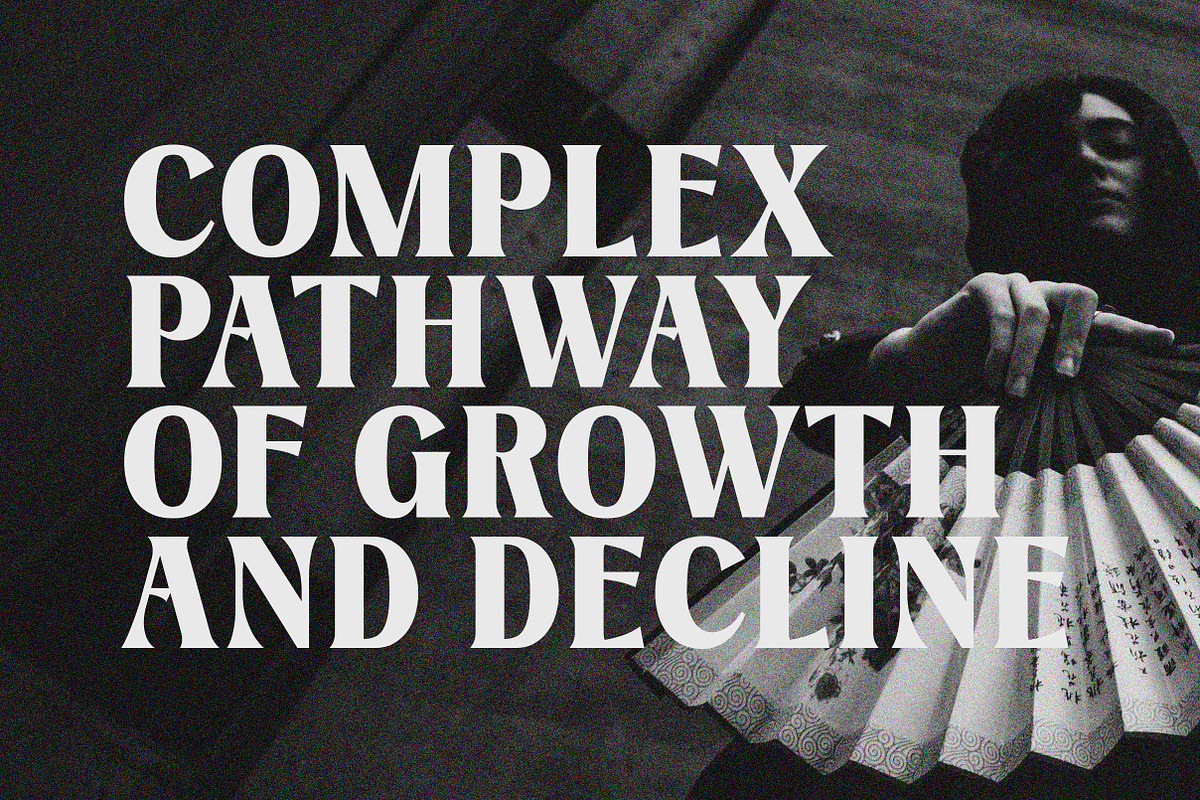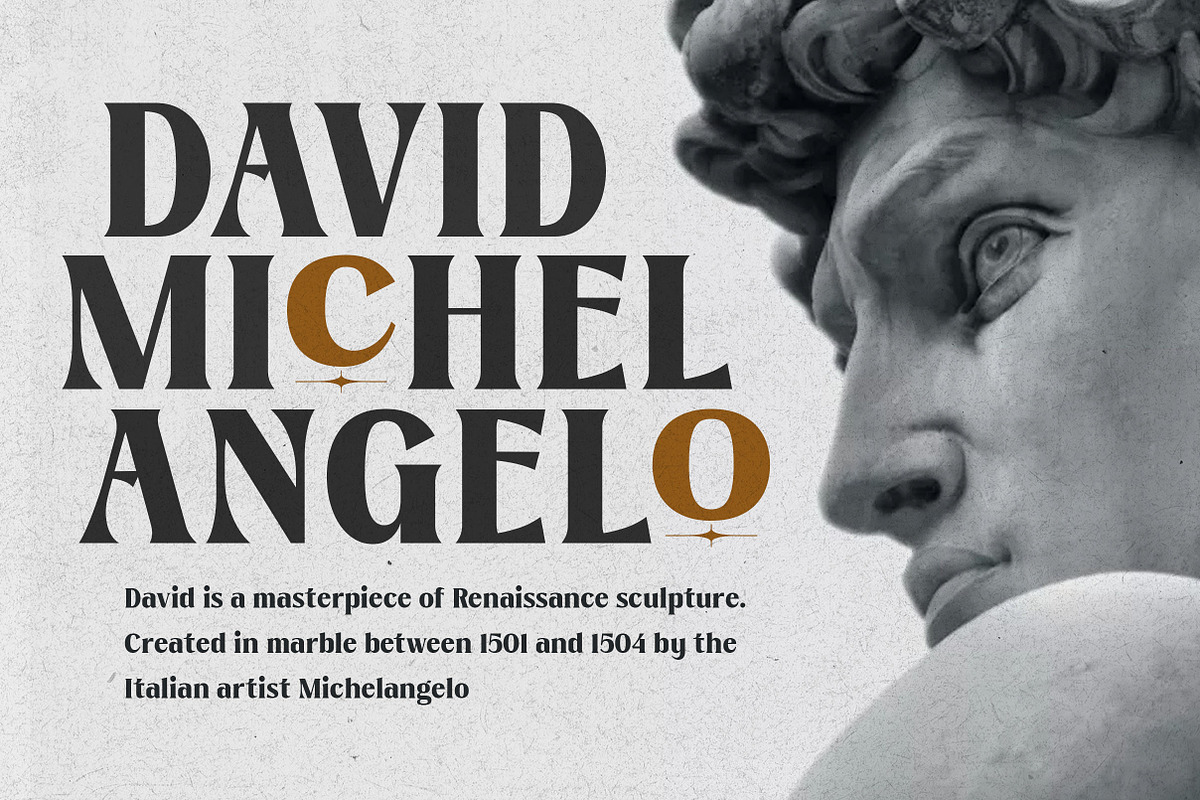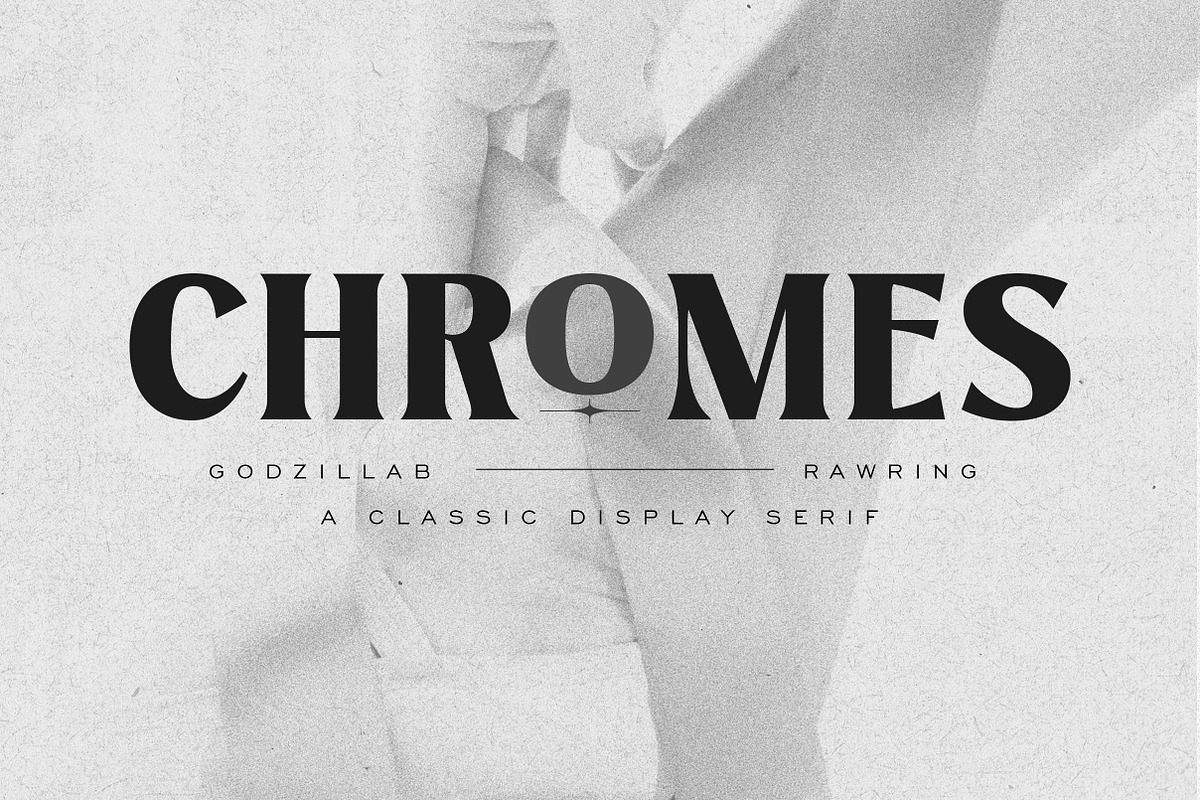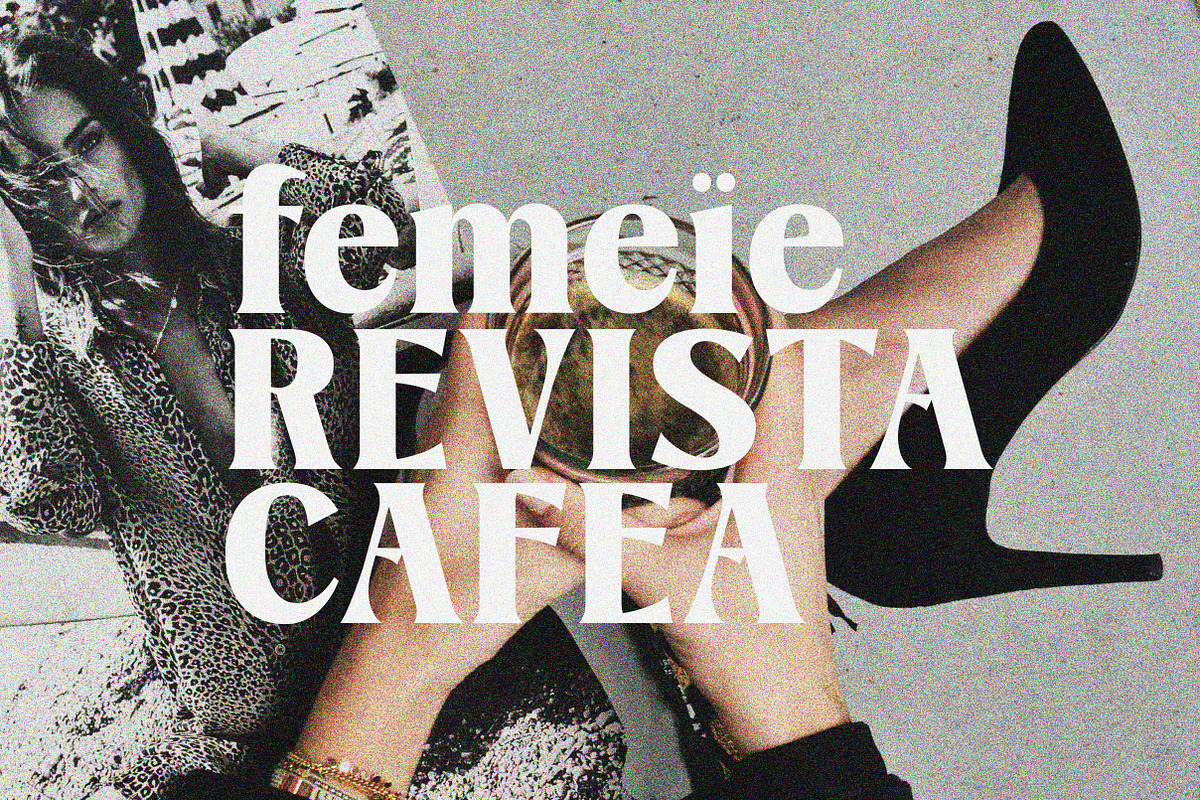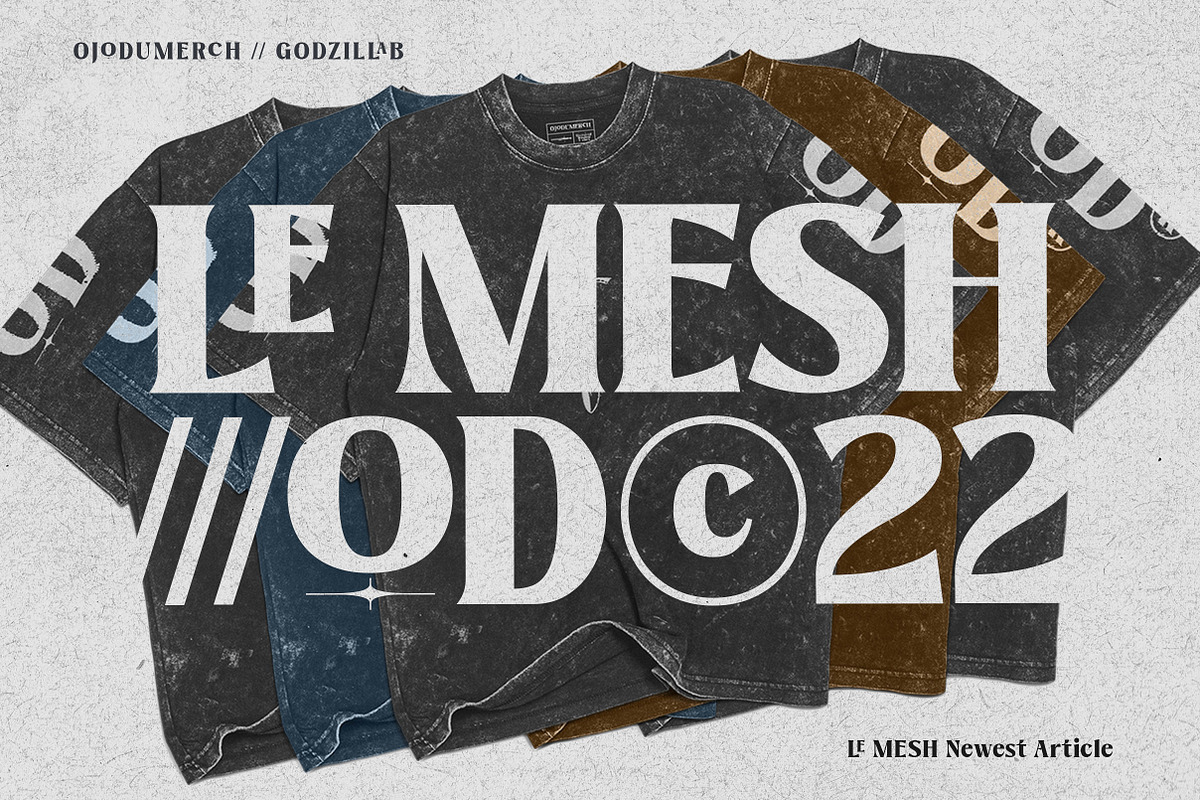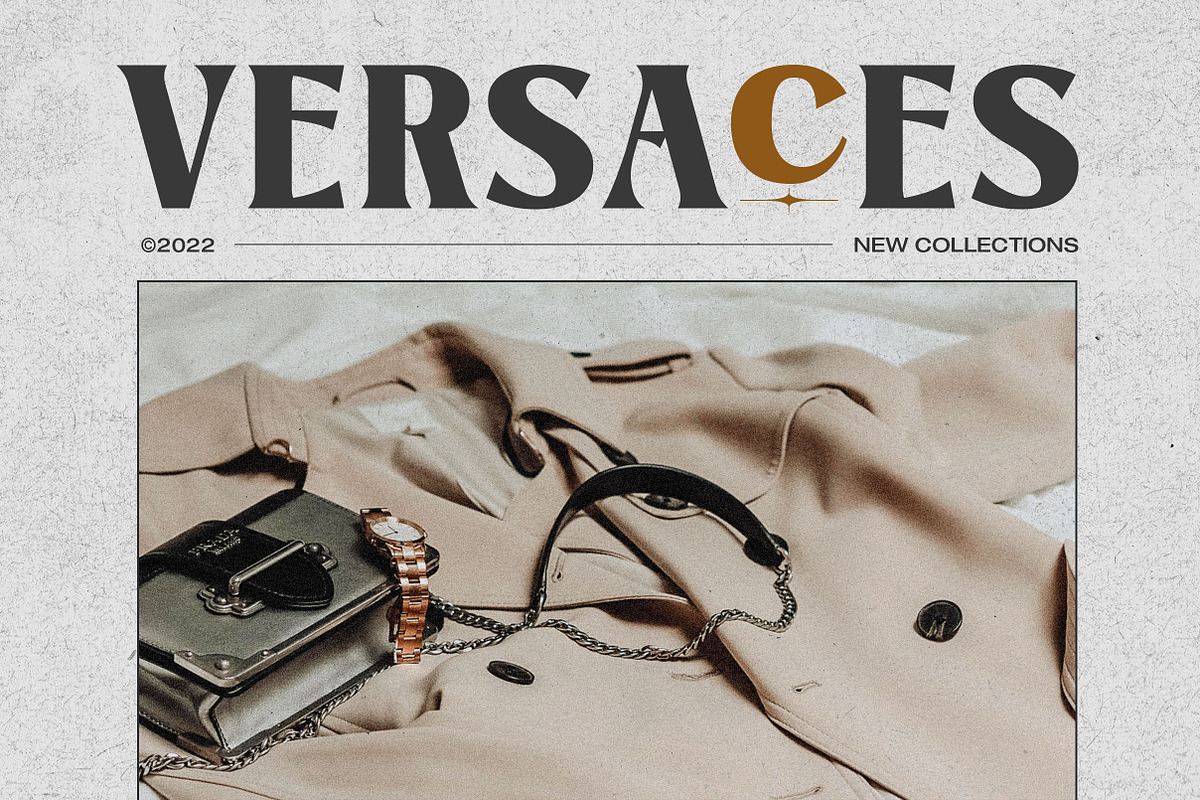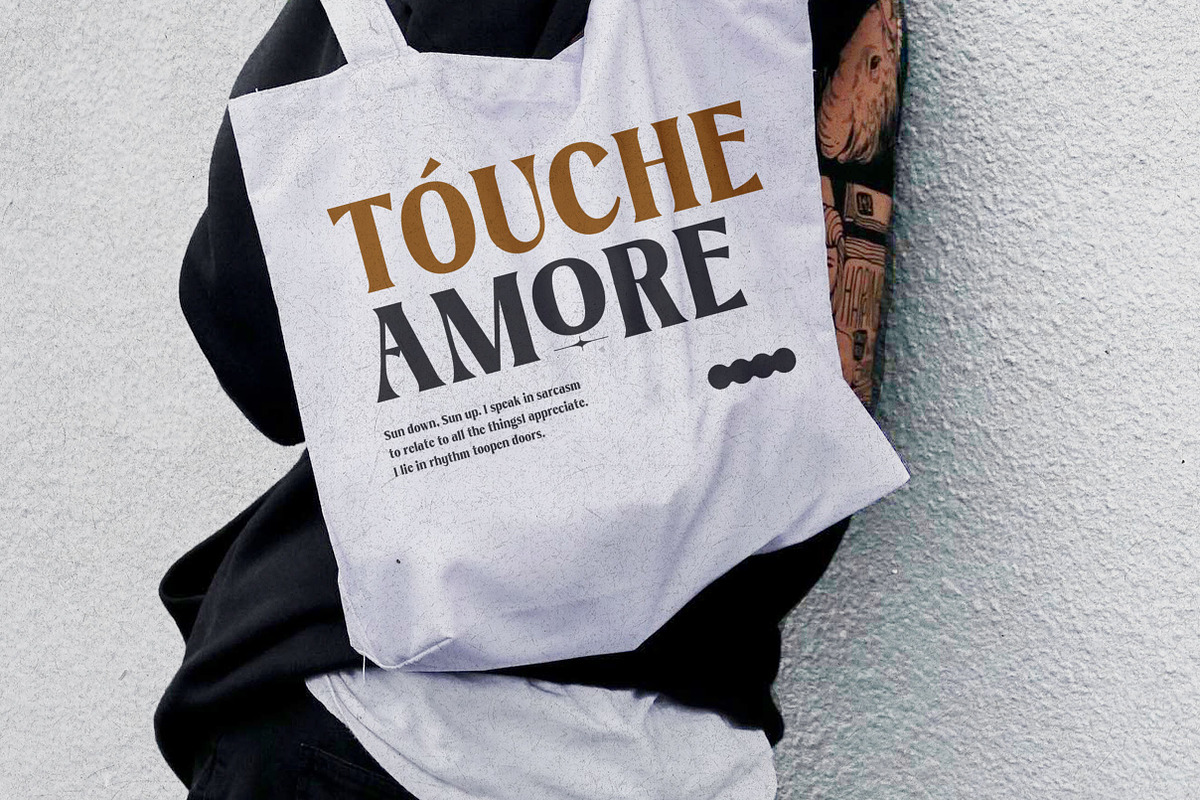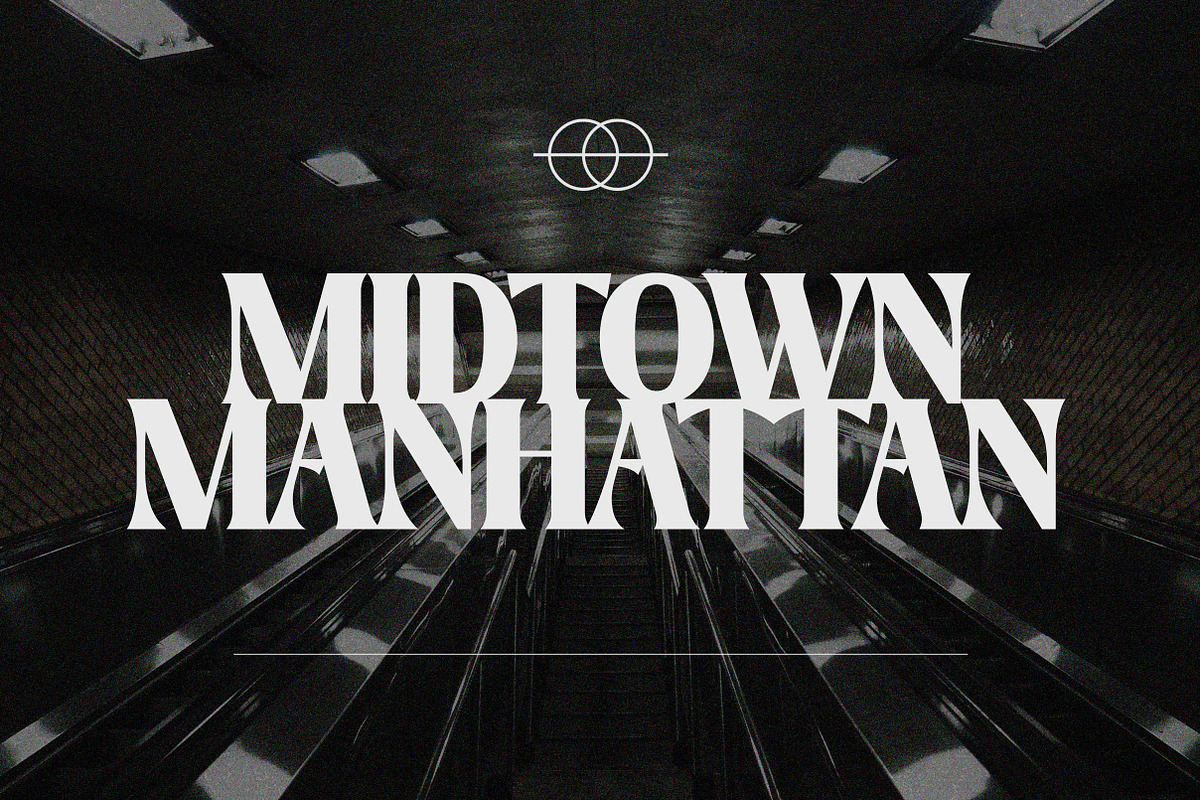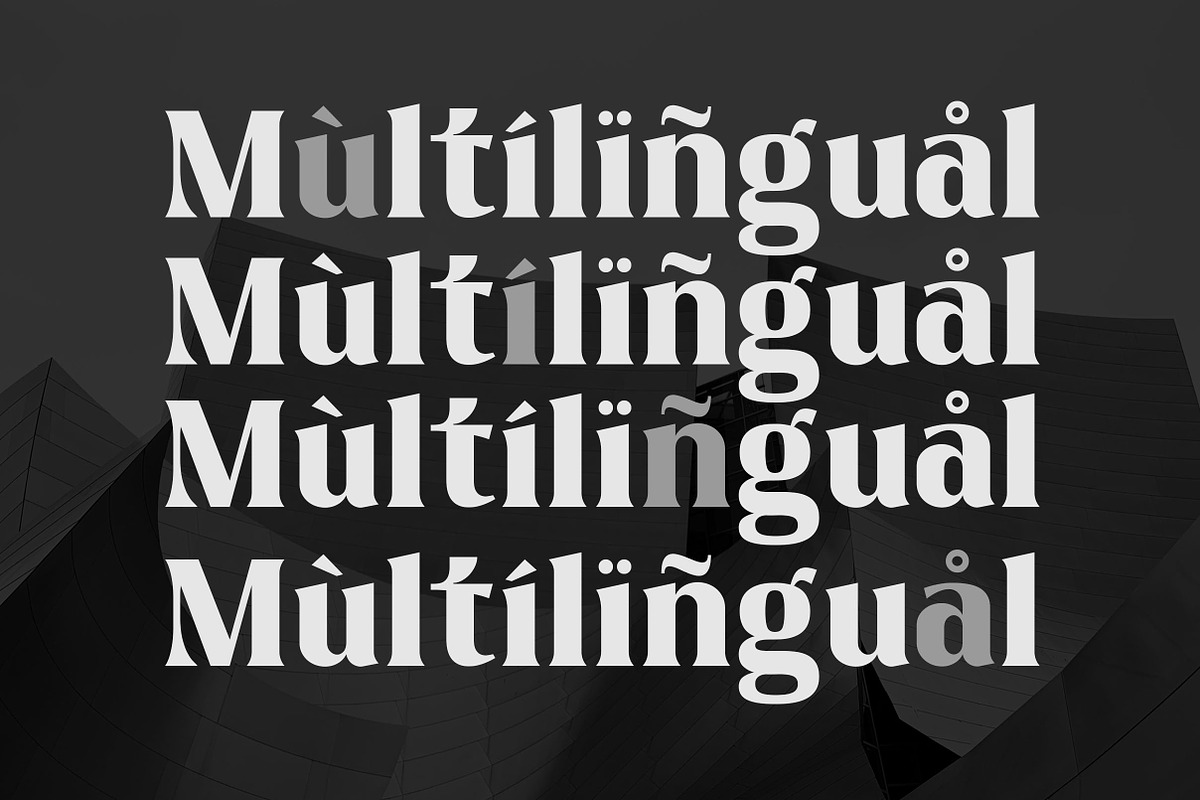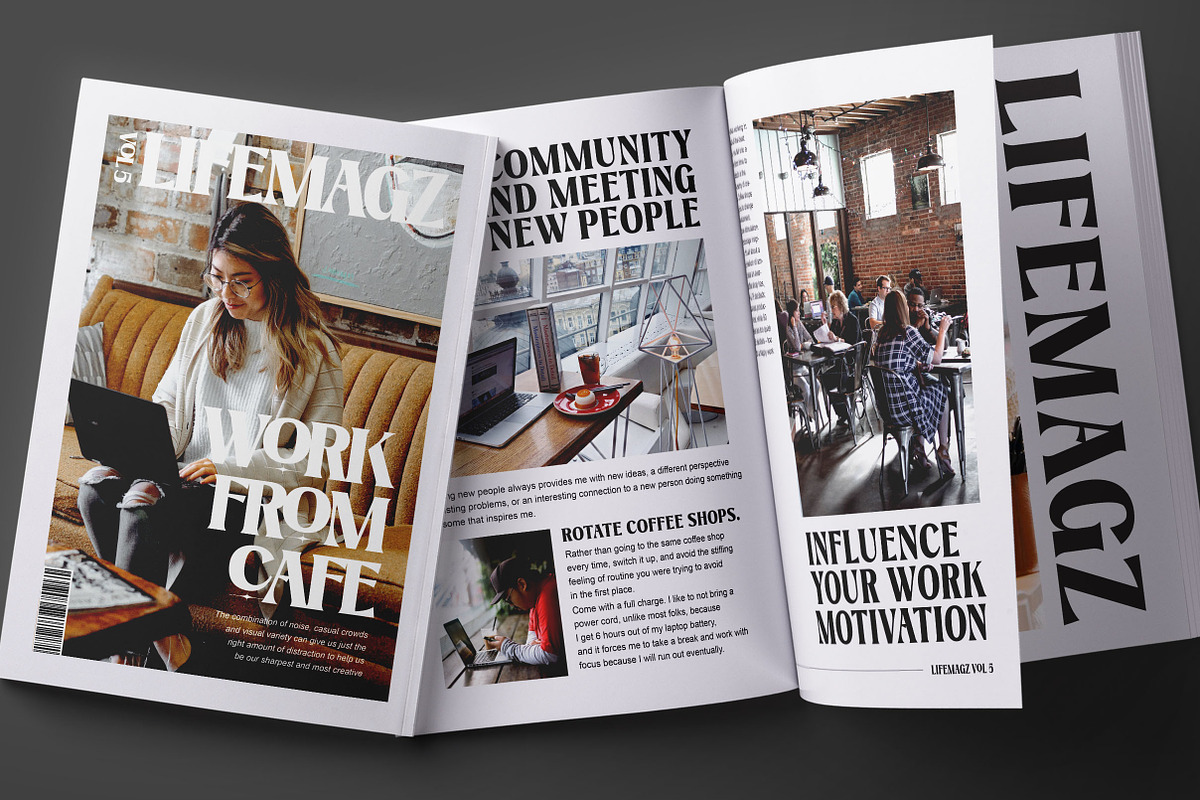
Chromes - Vintage Display Serif
Introducing our new font Chromes Vintage Display. Strong-sharp serif font with modern touch serif style . Inspired by the modern-classic typography and the High Octane Rock, Post Hardcore, Emo genre. Best for title/headline, logo/logotype, packaging/label designs, etc.
Packed with standard upper/lower case characters, numerals, punctuations, some multilingual letters, alternate characters, and ligatures. Get yourself one and start creating something cool!